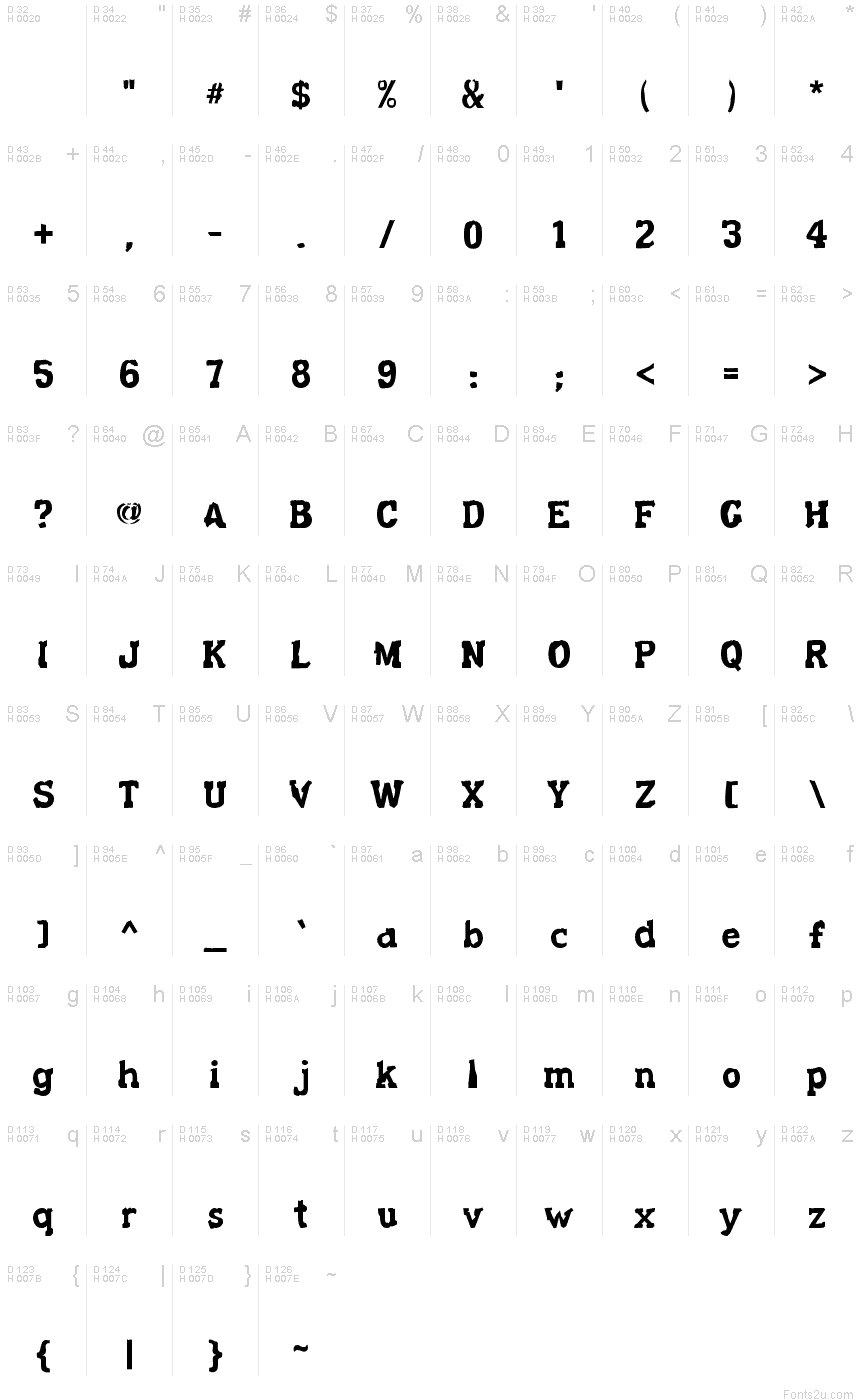
Decaying Kuntry
Decaying Kuntry font by B.O.Nelson of Brain Eaters is a free distorted display typeface that looks like it was dragged through a haunted honky-tonk. The chunky letterforms wobble and sag, as if they’re melting off old wooden signage, with rough, inky edges that feel hand-painted and left out in the rain. It’s bold, legible, and messy in all the right ways, carrying equal parts backwoods charm and low-budget horror.
Using Decaying Kuntry, you can instantly roughen up posters, horror-comedy titles, Halloween event flyers, B-movie graphics, spooky party invitations, and offbeat album art. This free font shines when it’s big and loud, where every bump and wobble can be seen. Pair it with a clean condensed sans-serif for supporting text to keep layouts readable while letting Decaying Kuntry handle the screaming headlines.